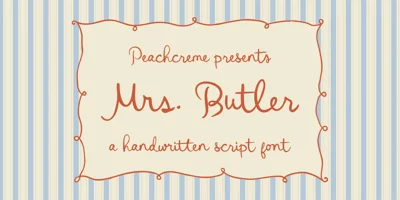
Mrs.Butler Font
This elegant typeface excels in luxury hospitality branding, fine dining restaurant menus, boutique hotel signage, upscale catering services, premium wine labels, sophisticated tea packaging, exclusive private club materials, and refined event invitations. Its distinguished character makes it perfect for projects requiring impeccable service standards and timeless elegance.
Mrs.Butler Font creates excitement through its refined sophistication that embodies the grace and attention to detail of traditional hospitality excellence. The font's aristocratic letterforms and polished curves create an atmosphere of distinguished service that appeals to discerning clientele seeking exceptional experiences. Its meticulously crafted character variations deliver understated luxury while maintaining impeccable readability that reflects the highest standards of professional presentation.
The Mrs.Butler Font family features multiple service-oriented styles including regular, light, bold, script, and ornamental variations. Each family member maintains the distinctive butler-like precision while offering different levels of formality for various hospitality applications. This comprehensive collection enables designers to create sophisticated service narratives that span from intimate personal touches to grand ceremonial presentations while preserving authentic elegance.
The Mrs.Butler Font provides designers with access to premium hospitality typography that brings distinguished service appeal to any project. Its refined nature and impeccable presentation make it ideal for creating prestigious brand identities and elegant communications that command respect from affluent audiences. Whether developing luxury hotel materials, designing fine dining experiences, or crafting exclusive service campaigns, this font delivers the sophisticated appeal and professional excellence essential for establishing trust with high-end clientele seeking unparalleled quality and attention to detail.